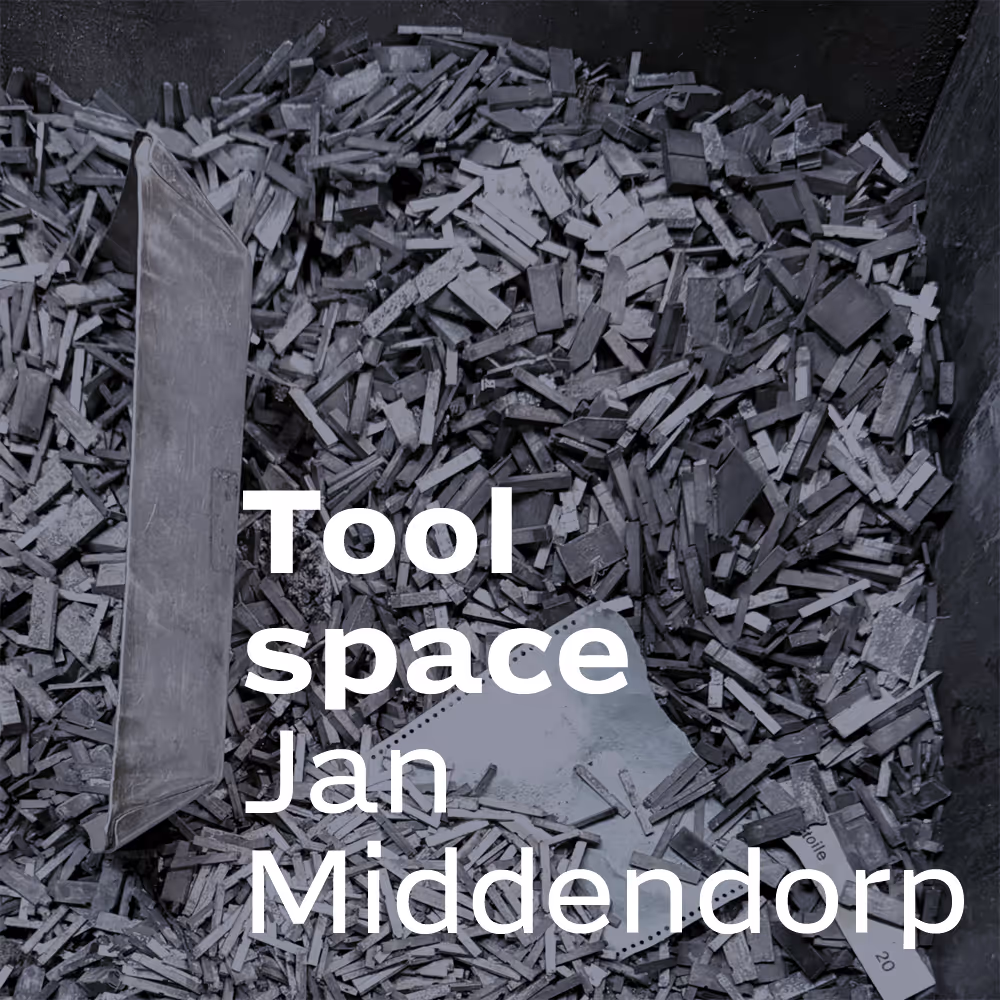
“Explorers, and that is what they are, do not want to do the same thing twice. They prefer to leave that up to ordinary designers, and studios. Which brings us to the second paradox: such designers may never get around to programming. They hope that the scripts and programs of LettError will simply be available on the internet one day.”
Container of used type, ready for recasting. A perspective on how tools and material have an influence on typography. At the Goossens collection, Antwerp.
In the mid-Eighties there was hardly a computer to be seen at the Royal Academy. Working by hand was the norm. That was pleasant because you learnt to deal with letters and words in a very direct and physical way. Typography under Gerrit Noordzij was in the first place writing and seeing how forms arise on paper. There were computers, but their place was at home. JvR and EvB, later LettError, were already messing around with computers at secondary school, just as a decade earlier whizz kids with a technical bent soldered their own amplifiers and radios. When typography entered their lives and they got to know one another, the question was not whether a computer might be a legitimate tool for that profession, but what the best way to use it would be. Why? came later, and it was asked by others. After all, typography is a discipline full of traditions and conventions, and few typographers are in the front ranks when it comes to welcoming new technology. From the moment that LettError went public with ideas that were mainly intended to be playful but were often interpreted by colleagues as a provocation, there was a call for justification: a method behind the madness.
There is no longer any need to explain why computers can be useful for typography; hardly anyone does it without them. But the next step, that the typographers themselves influence the operation of the computer, is too much for most of them. Still, it is a natural choice for designers who do not want to be slaves to their digital tools.
A hammer can do what a hand can’t
In itself a computer is not a tool but a tool-kit, a box you put functions in as you choose. All kinds of instruments that used to litter up workshops and offices now have a place on the hard disk: marker and drawing board, scissors, paste, trash can, ledger, typewriter, calculator, fax and telephone. Some of those instruments are already in the computer when you buy it in the form of system or standard software; others are added by buying extra programs.
Can you compare a program with a tool? Not completely. In the case of a physical tool, like a paint-brush or a hammer, it is pretty clear what kind of tasks it is more or less suitable for. Like computers, those objects (to borrow a term from Marshall McLuhan) are an extension or expansion of the human body, but their scope is usually limited to a single function. For example, they are highly suitable for spreading chemicals on a surface or hammering a piece of metal without hurting your hands. The case is more complicated when it comes to a computer program. A program has more potential than a hammer, it is more complex to use, and it comes with hefty instruction manuals to guide the user through all the functions. After weeks or months of intensive use, a program can still surprise you with undiscovered functions. The learning period is a long voyage of discovery through what you can call the software world of tools.
But no matter how overwhelming a program may be when you are first introduced to it, its capacity is finite. Software is a commercial mass product, so it is not made for individuals but for a target group with hypothetical wishes and demands. If in practice that target group turns out to have unfulfilled desires extra functions are added with an upgrade, but only if there is enough interest. You can do everything with a program as long as there are enough people who want to do the same thing. None of this raises any problems for the average user, who usually does not demand more of the computer than it is capable of doing, and in fact finds reassurance in its limited capacity. That should not be the case for users in a creative profession. It is precisely the task of designers (graphic, industrial or whatever) to discover new possibilities. In their case the use of a computer is perhaps more of a handicap than an advantage.
If you walk through the real world with a pencil behind your ear, you will find the inspiration for new ideas in that world. If you sit in front of the monitor all the time, you will draw your ideas more and more from the computer. In the past you were successful if you could make what was in your mind’s eye with your own hands. Now there is a danger that designers will only function properly if their creativity does not exceed the potential of their computer: if the world of ideas fits inside the world of tools. Of course, in the long run this leads to a monotonous computer-driven uniformity.
Once an alert designer has become familiar with the software, it is to be hoped that questions will arise which the software is incapable of solving. This can be frustrating. You think of an image or a solution that requires a specific combination of functions, and then it turns out not to exist. Or you want to repeat an action a large number of times, while the program does not offer any way of doing it automatically. The toolhorizon comes into view. Should you begin to have doubts about yourself as a designer? On the contrary. It simply means that the people who devised the program did not take your idea into account, so it is a relatively new idea. And it is no bad thing for a designer to have new ideas. All the same, good advice is a rare commodity when you run up against the limits of the tool-kit in the middle of the thinking process. Should designers slow down and adjust their ideas to what the computer can handle? As we know, to design is to make images within given limitations. But not all limitations are the same. Limitations and demands imposed by a client are easier to accept than the arbitrary limitations of your digital tools.
Honing
Artisans of the past — the predecessors of our designers’ guild — were rarely satisfied with tools as they found them in the shop. They always had the tendency to personalize their tools, to appropriate them by honing them, converting them or expanding them. The more specialized the work, the greater the demand for customized or individually made instruments. For instance, letter-cutters in the past thought up methods of working faster and more meticulously, and to that end they designed not only new fonts, but also counterpunches and other new tools. It must be possible to do something similar with software. After all, programming graphic programs is much too important to leave to programmers.
A map from the LettError book, attempting to connect the ideas. The whole book was generated with Python. Not by AI, but by deliberately written Python code. 2000.
For most designers it is not an obvious option to start meddling with the original code themselves. Programming is regarded as the work of specialists. So e-mails are sent to the publisher with lists of demands. With a bit of luck the engineers reply (‘it is a marketing question’), and perhaps the marketing department too (‘it is a technical problem’), and if you are really lucky a new version which contains a few improvements appears on the market between three and eighteen months later. A designer does not usually have that much time. The deadline is generally next week, or yesterday.
Right from the start, LettError found it logical and fun to solve design problems with new bits of software. This was connected with their early, extraordinary interest in the inside of a computer. Now even designers without a whizz kid past can do their own programming, provided they are given the right tools to do the job. Take Python, for instance, a programming language that was developed by Guido van Rossum (Just’s brother). Python is internationally recognized as a flexible, low threshold language for addressing the computer, and it is exceptionally suitable for making additions that you have written yourself to programs without requiring a lot of prior knowledge.
Parametric design
What are the practical possibilities for a designer who hones his own tools? An interesting facet is the opportunity of automating a part of the creative process. A design usually starts with a series of sketches, a vague visualization of possibilities that gets the selection process — the choice between good and mediocre solutions — going. As long as you’re sketching on a napkin, the marks can mean whatever you like. If you start straight away with the mouse in your hand, which is more common nowadays, you are immediately confronted with tenths of millimeters and dead straight lines. The design already takes on finality when it is time for flexibility.
There is an alternative: programming-assisted design. In this case the alternatives are neither sketched by hand nor directly drawn on the computer. The designer indicates the ingredients and the margins, and asks the computer to think up a series of variables, taking certain rules into account. In other words, to vary certain parameters at random. The computer itself does not start designing, it cannot be accused of interfering with the creative process. It does what a computer is best at doing: very quickly working out the consequences of possible decisions. Fully informed, the designer selects the most attractive, the handiest or the best solution from the range of alternatives. Nothing yet? press the button again and see what the program makes with slightly altered parameters.
The designers themselves determine how complex they want this process to be, how long they want to postpone the definitive decisions. They can decide to add certain values or to fix certain variables (a color, a font, the thickness of a line). The program becomes a specialized graphic synthesizer, that like its musical counterpart, is just as limited or versatile as the person operating it.
Best and better
The random principle is good for something else as well. In the early days of digital typography, software engineers were fascinated by the possibility of creating the perfect form. Had people not been searching for centuries for the roundest circle, the most flexible curve, the clearest line? With the computer this was as easy as falling off a log. Add razor-sharp definition by using offset on smooth modern paper, and the result is the best print ever. Engineers get the warm fuzzies when confronted with such perfection. The question is whether the ordinary reader wants such an overdose of perfection. After all, a completely balanced page of text can also be completely boring. Perhaps our attention wanders if there are no rough edges. Is the best there is really better for us?
Here too parametric design can offer a solution. By allowing the computer to mess around within the — strictly defined — margins of a virtual font or layout, a new sort of liveliness can arise. In that case the computer is not used as the big leveler that it only too often is, but as a way of introducing carefully considered imperfection.
The critical outsider will note that this method also has its disadvantages. After all, sometimes designing proceeds faster and more securely if nothing is left to chance, if work starts straight away as on the computer with a precision of a hundredth of a millimeter (‘exactly one cm’ is also possible). Is it really handy to generate the layout of a calendar with a program that can shift parameters endlessly? You have to write a program like that first, and that takes a lot of time. Of course not, will be the answer, the first time naturally takes more time and trouble, but that is what makes it so much fun.
Design is hardly a challenge any more, but programming is. The paradox of designing like Just and Erik is that a lot of individually written tools are only efficient (in the sense of saving time) if the same sort of design is repeated a large number of times; but that is a very rare occurrence. Explorers, and that is what they are, do not want to do the same thing twice. They prefer to leave that up to ordinary designers, and studios. Which brings us to the second paradox: such designers may never get around to programming. They hope that the scripts and programs of LettError will simply be available on the internet one day.
Ready to use.
Jan Middendorp
Erik: Jan wrote this essay for the book we made for the Charles Nypels Prize in 2000. The ideas and the title comes from a lecture “Toolspace and Ideaspace”, an exploration of the influence of tools on the design process.